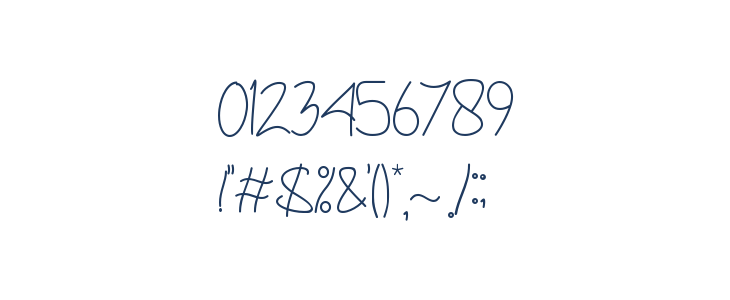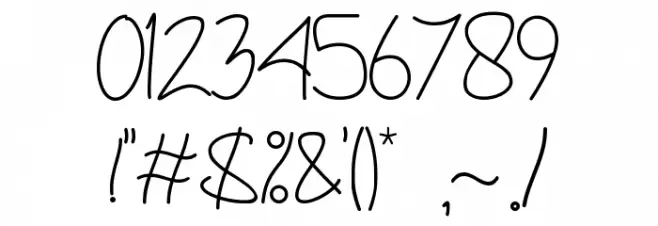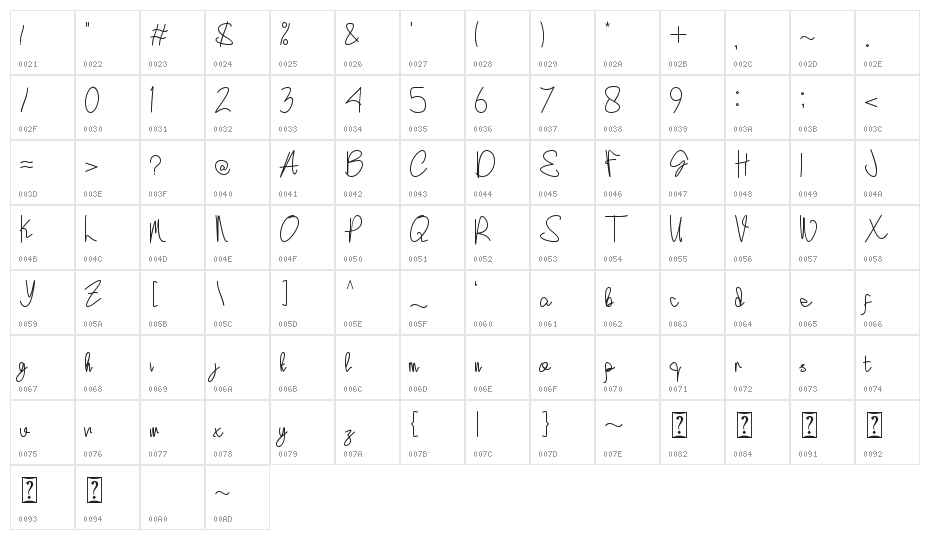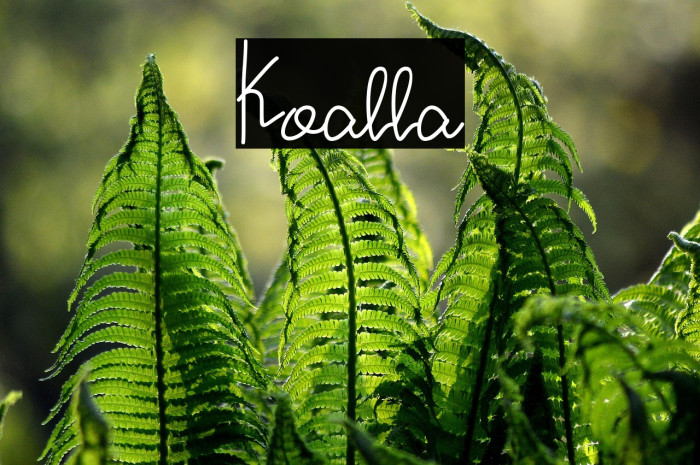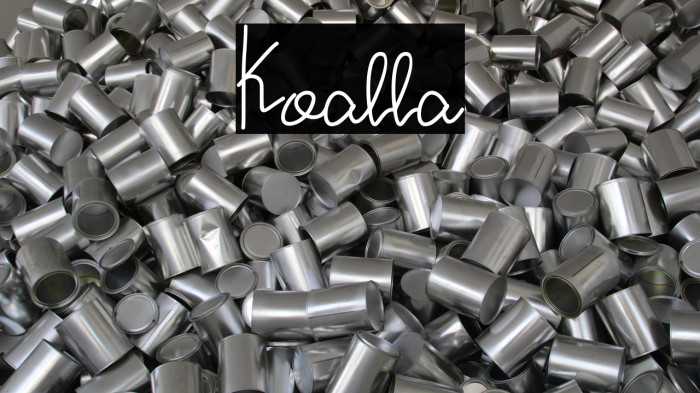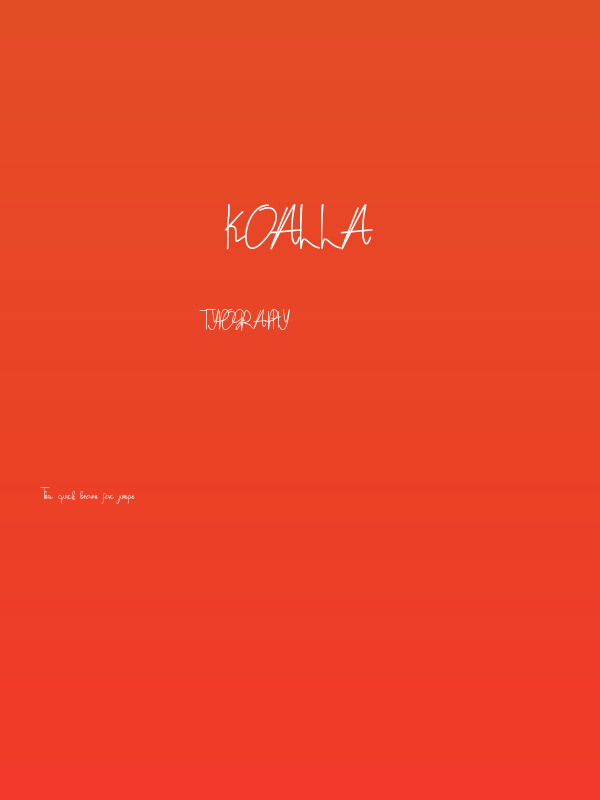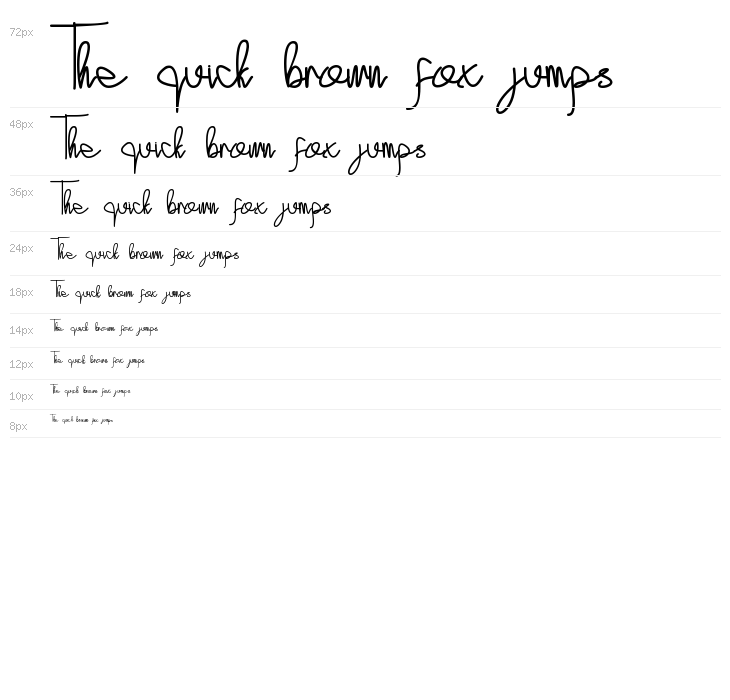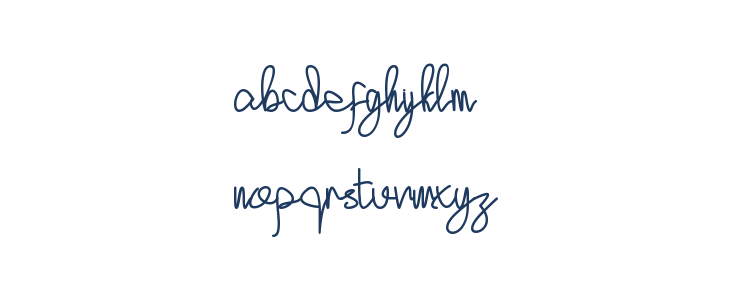
Koalla Font
Koalla Description
This font features a playful and whimsical handwritten style, characterized by its fluid and organic letterforms. The uppercase letters are tall and slightly narrow, with a casual flair that suggests a sense of movement and spontaneity. The lowercase letters maintain a consistent style, with rounded edges and a smooth flow that enhances readability. Numbers and special characters follow the same aesthetic, ensuring a cohesive look across all text elements. The font's unique personality makes it ideal for projects that require a touch of creativity and informality.
| Overall Style | Casual and playful |
| Use Case | Logos, Invitations, Creative projects |
| Proposed Projects | Ideal for greeting cards, children's books, creative branding, and casual invitations. |